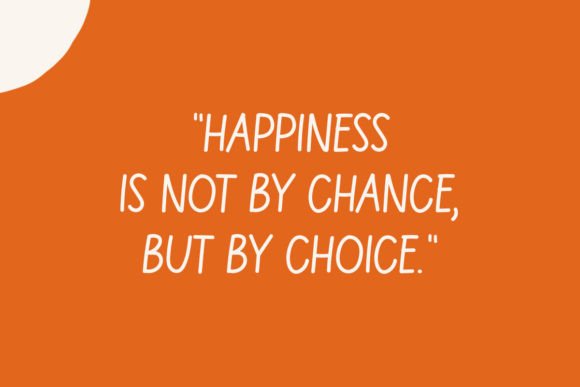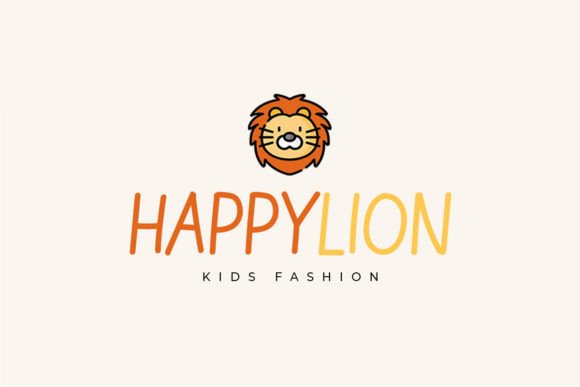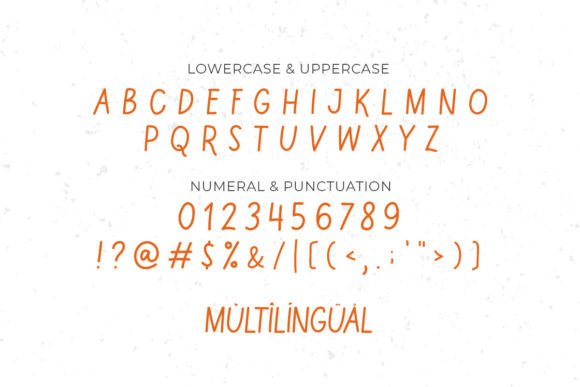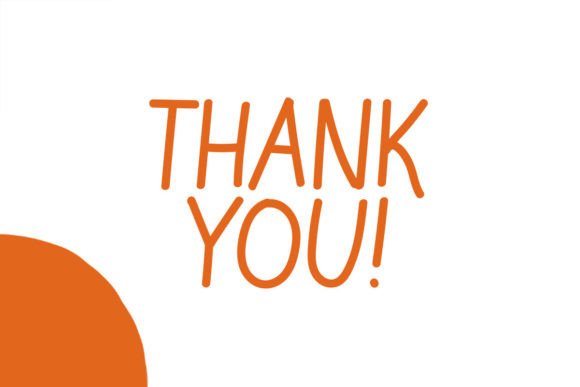
Introduction to Lemau Font
Have you ever found yourself rummaging through your design files, desperate for that one font that will bring your creative project to life? The moment you lay eyes on it, you know you’ve hit the jackpot. That’s exactly what happened to many designers when they discovered the Lemau Font – a stunning, handwritten font that’s as versatile as it is beautiful.
With its playful glyphs and luxurious hand-drawn effect, the Lemau Font is a game-changer for designers looking to add a touch of sophistication to their designs. Whether you’re working on a logo design, product packaging, or social media posts, this font is sure to make your work stand out. And the best part? It’s available for free download, complete with a transparent background, making it easy to integrate into your high-quality design resource.
Key Features of Lemau Font
- Unique, hand-drawn design ideal for creative projects and artistic expressions.
- High-quality font with transparent background, perfect for use on images and graphics.
- Includes a comprehensive character set with uppercase and lowercase letters, numbers, and special characters.
- Supports various languages, making it a versatile font for global creative projects.
Honest Review: Lemau Font
I recently came across the Lemau Font, a free design resource that caught my attention. In this review, I’ll share my honest thoughts on its strengths and weaknesses.
- Clean and modern design aesthetic, perfect for creative projects
- Limited character set, may not be suitable for extensive text-based designs
- No additional font styles or variations available (e.g. bold, italic, condensed)
Overall, I’m impressed with the Lemau Font’s simplicity and versatility. While it may not be the most comprehensive font, its clean design and high-quality files make it a great addition to any design project. If you’re looking for a free design resource with a modern twist, the Lemau Font is definitely worth checking out.
How to Use Lemau Font
The Lemau Font is a versatile and stylish design resource perfect for various creative projects. This high-quality font is available for free download, making it an ideal choice for designers and non-designers alike.
Tips for Getting the Most Out of Lemau Font
To get the most out of the Lemau Font, experiment with different font sizes, colors, and combinations. You can also use the transparent background feature to create unique and eye-catching designs.
The Lemau Font is perfect for various creative projects, including but not limited to, wedding invitations, business cards, and social media graphics. Its high-quality design and transparent background make it an ideal choice for designers and non-designers alike.